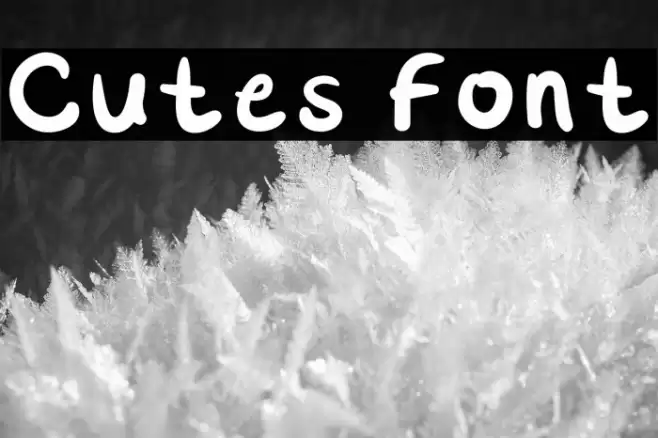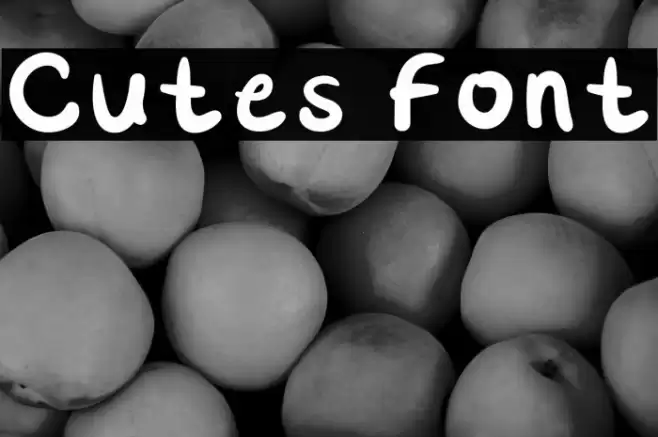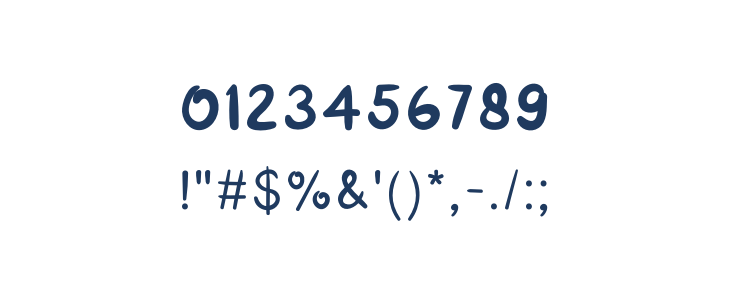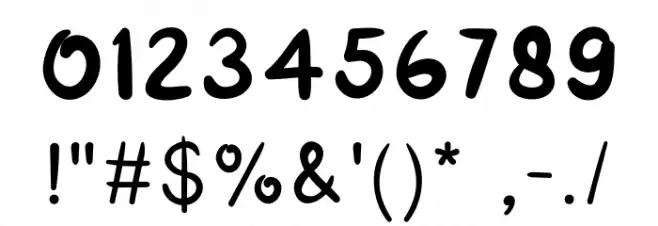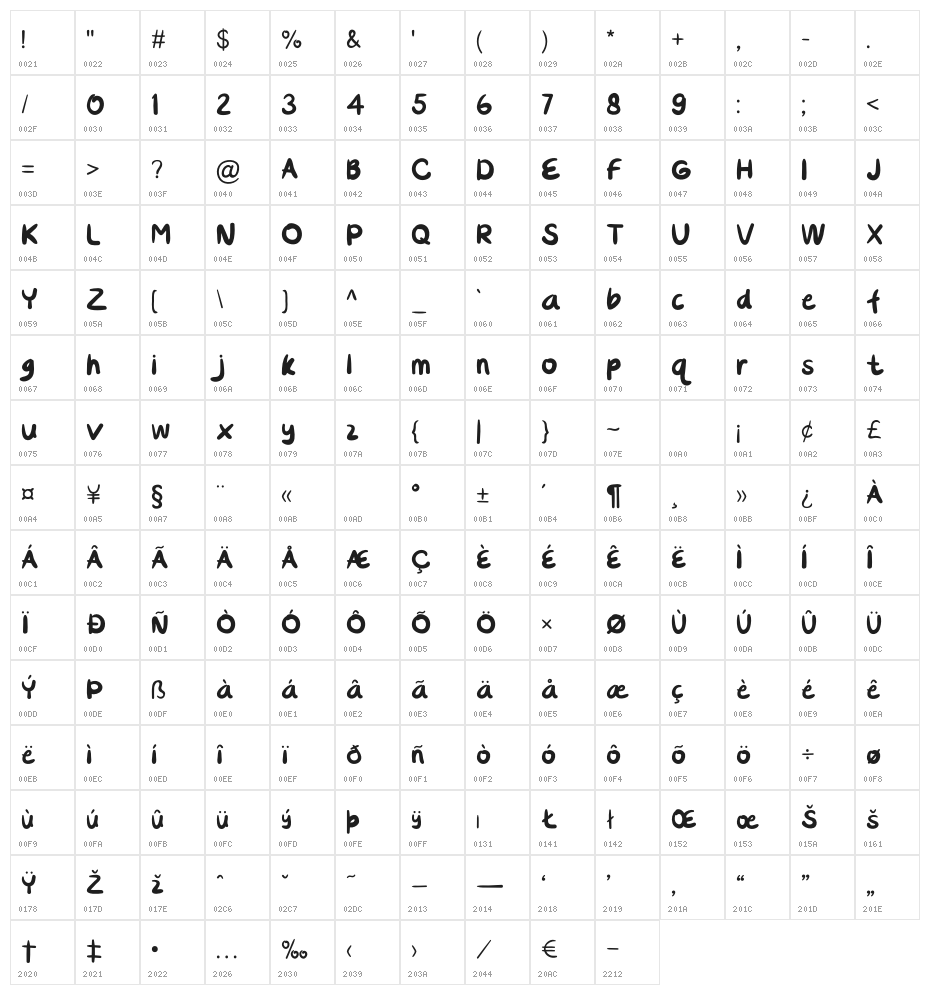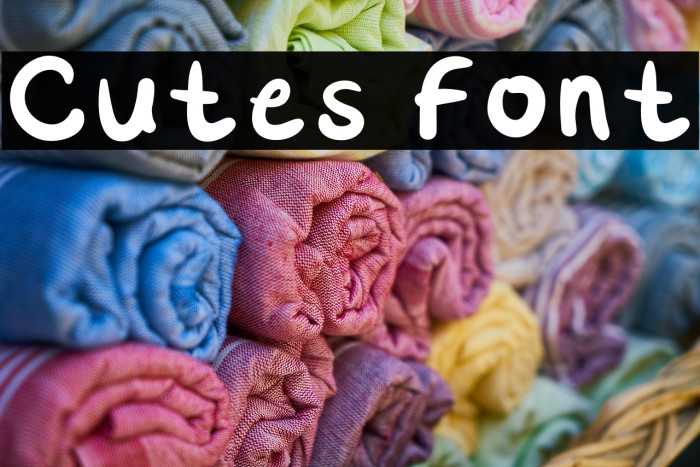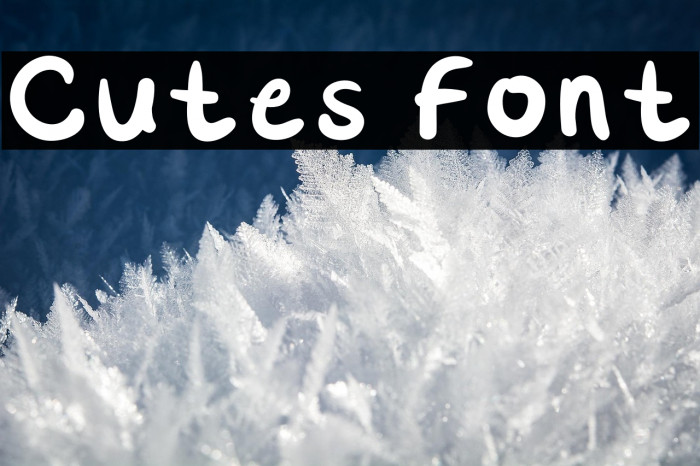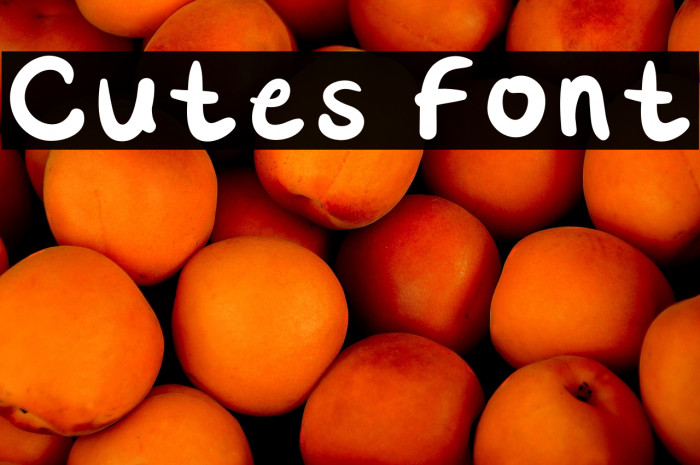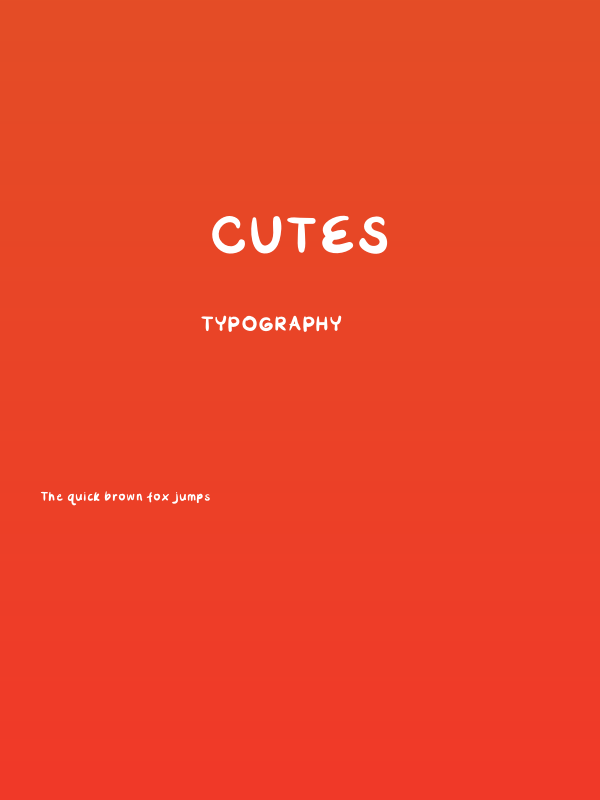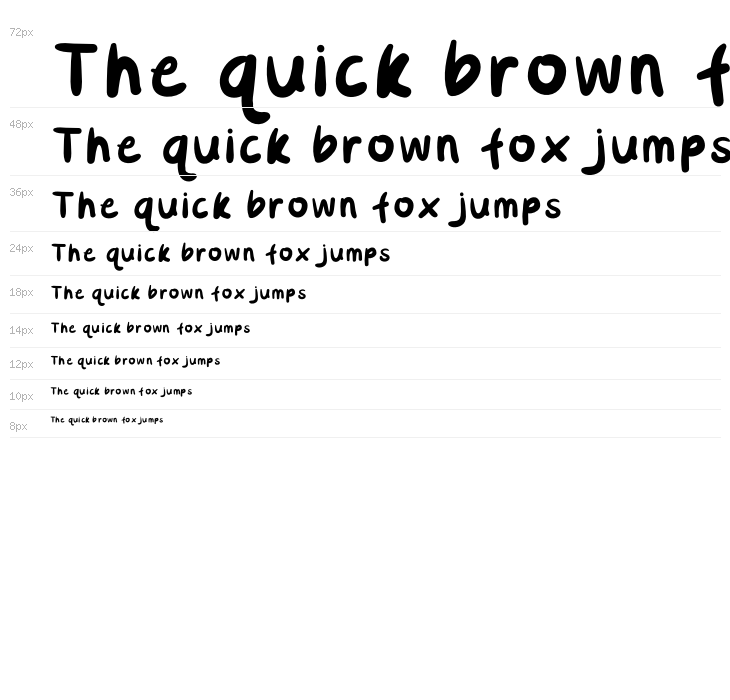
Cutes Font
Cutes Description
This playful and whimsical font features rounded, bold characters with a hand-drawn appearance. The letters are slightly irregular, adding a charming and informal touch. The strokes are thick and consistent, giving the font a strong presence. Its friendly and approachable style makes it ideal for projects that require a fun and lighthearted feel. The font includes a full set of uppercase and lowercase letters, numbers, and a variety of special characters, ensuring versatility in design applications.
A playful, bold, and rounded font with a hand-drawn style from Uncategorized fonts.
- Proposed Projects: Perfect for children's books, playful branding, greeting cards, and casual invitations.
- Overall Style: Playful